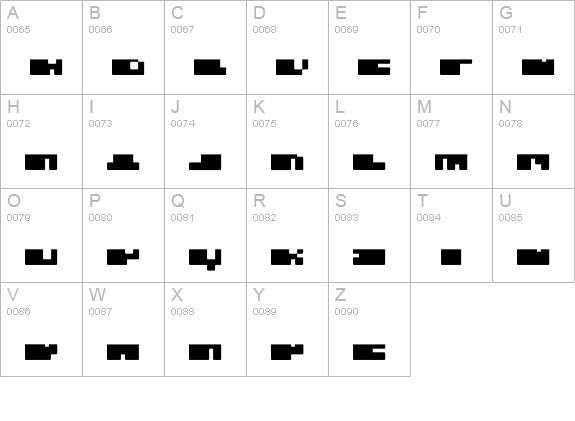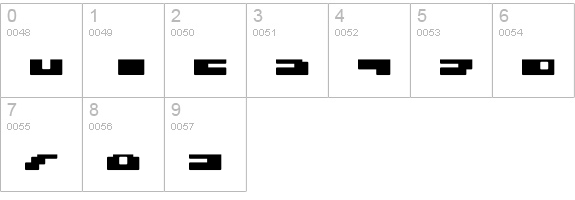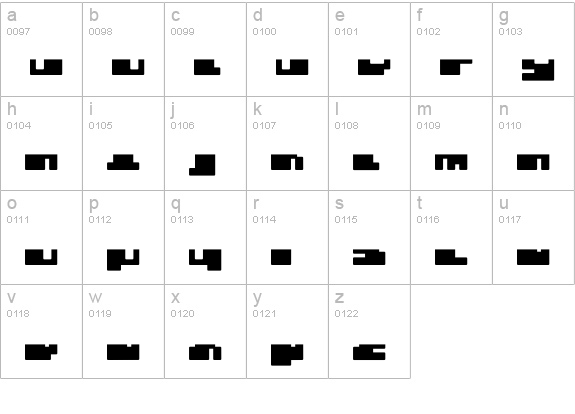
DS PTRLDizel05 Font Details
DS PTRLDizel05 is a modern and stylish font that exudes a sense of sophistication and creativity. With its sleek lines and unique design, this font is perfect for making a statement in any project or design. Whether you're looking to create eye-catching graphics or elegant branding materials, DS PTRLDizel05 is sure to impress. The best part? This font is available for free download at FontsMarket.com, making it accessible to anyone looking to add a touch of elegance to their work. Don't miss out on the opportunity to enhance your designs with this exquisite font that is both versatile and visually appealing. Download DS PTRLDizel05 today and unleash your creativity!